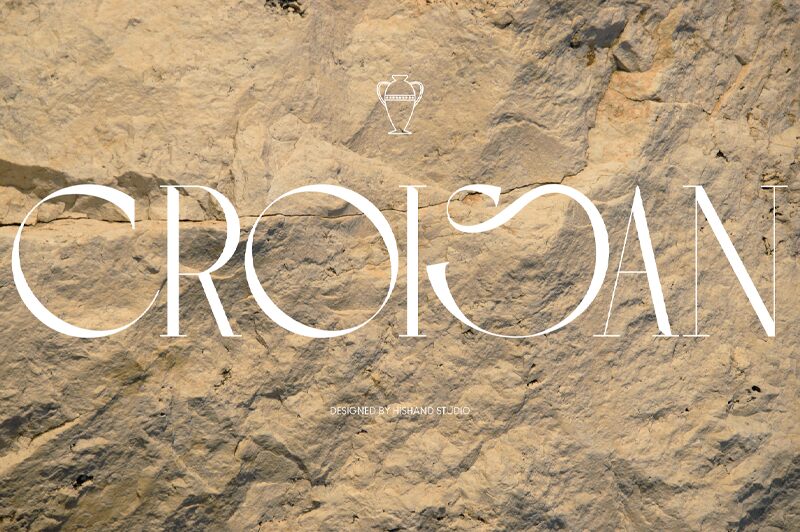
Croisan font, crafted by Hishand Studio, is a striking serif typeface that embodies elegance and sophistication. Its light weight and refined lines offer a graceful aesthetic that enhances readability without compromising on style. This free font exudes a timeless charm, making it an excellent choice for projects that demand both elegance and clarity.
Ideal for luxury branding, editorial design, or sophisticated invitations, Croisan's delicate yet commanding presence captures attention effortlessly. Designers seeking to download a font with distinctive character and versatility will find Croisan to be an exceptional addition to their toolkit.
Explore the possibilities with Croisan font; elevate your creative projects with this refined serif typeface-perfect for capturing both modern and classic sensibilities.